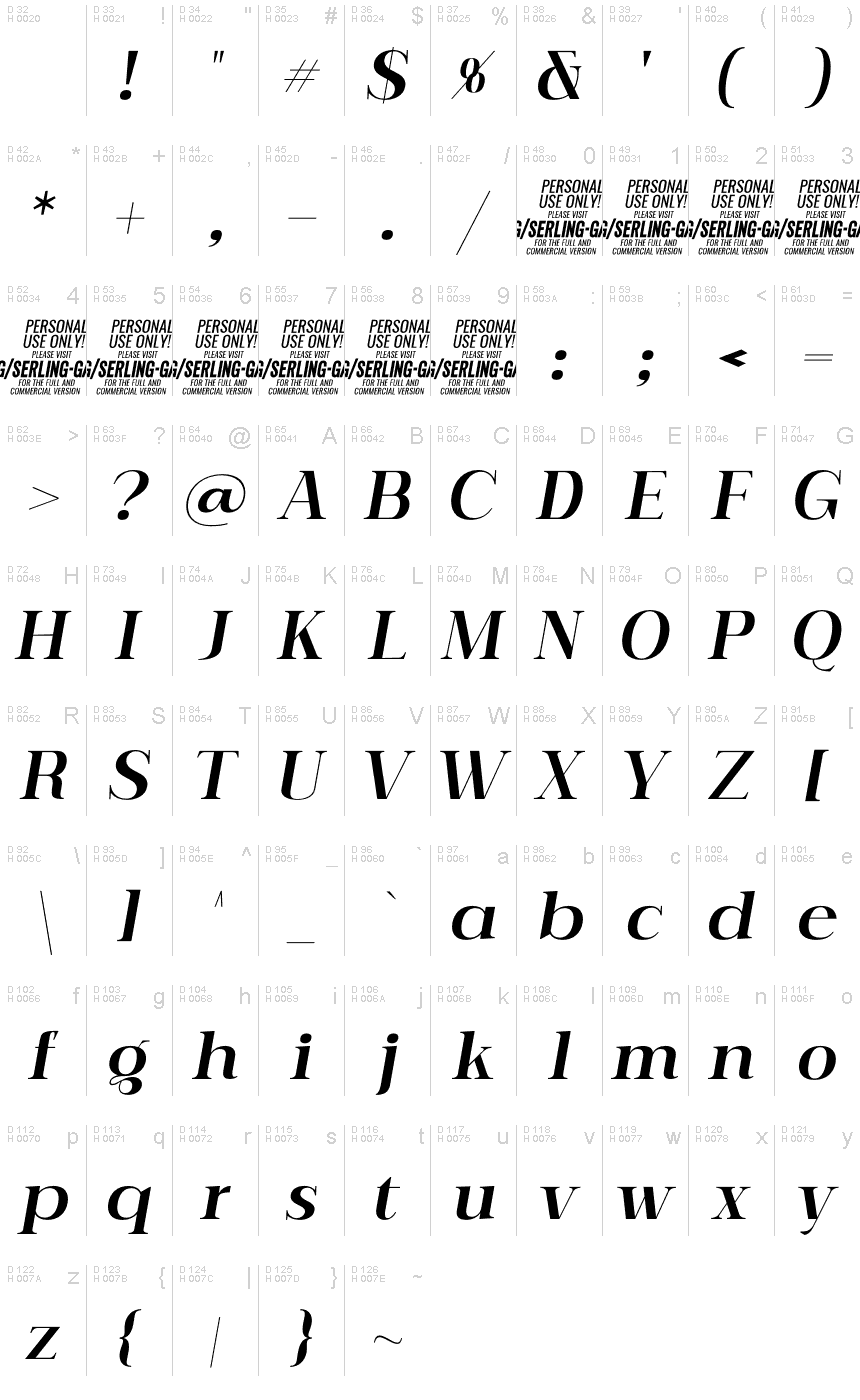
Serling Galleria PERSONAL USE Bold Italic
Serling Galleria Bold Italic is a stunning semi-bold serif font that exudes elegance and sophistication. Designed by the renowned Mans Greback, this typeface boasts sharp angles and intricate details that make it perfect for high-end projects such as luxury branding, wedding invitations, and editorial layouts. Its bold italic style adds a touch of drama to any design while its precise serifs lend an air of professionalism. Whether you're creating a fashion magazine spread or designing a restaurant menu, Serling Galleria Bold Italic is sure to make your text stand out with its striking presence.
Serling Galleria is a classy, classic serif font that exudes an air of fine art and high-end creativity. With its clear, legible letterforms and modernist inventiveness, Serling Galleria brings a touch of strict creativity to your designs, making them stand out in sophistication.